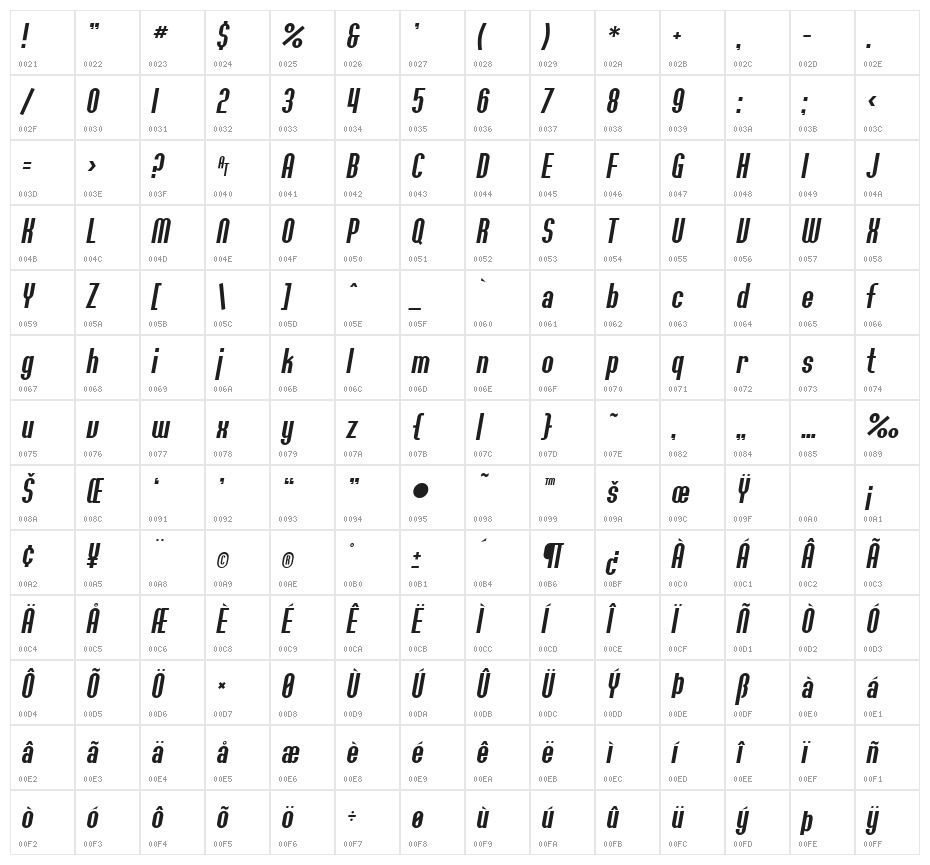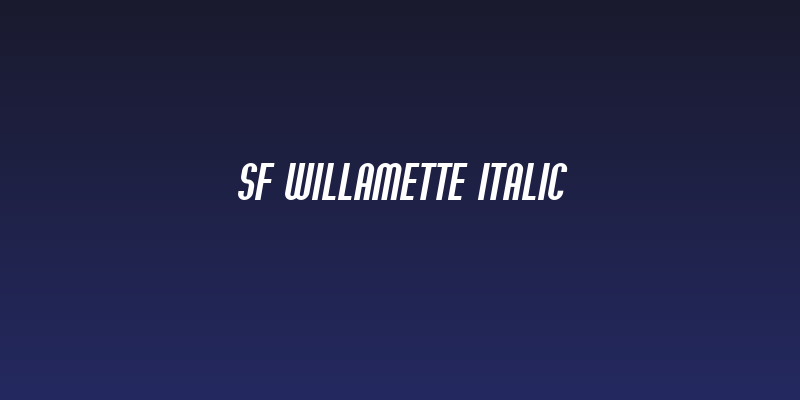
SF Willamette Italic Font
SF Willamette Italic Description
This font features a bold and dynamic italic style, characterized by its strong vertical emphasis and slightly condensed letterforms. The strokes are consistent in weight, providing a uniform appearance across all characters. The slanted design adds a sense of movement and energy, making it suitable for attention-grabbing headlines and titles. The uppercase and lowercase letters maintain a cohesive look, while the numerals and special characters are designed to complement the overall aesthetic. The font's modern appeal is enhanced by its clean lines and smooth curves, making it versatile for various design applications.
| Proposed Projects | This font is perfect for branding, advertising, poster design, and any project requiring a bold statement. |